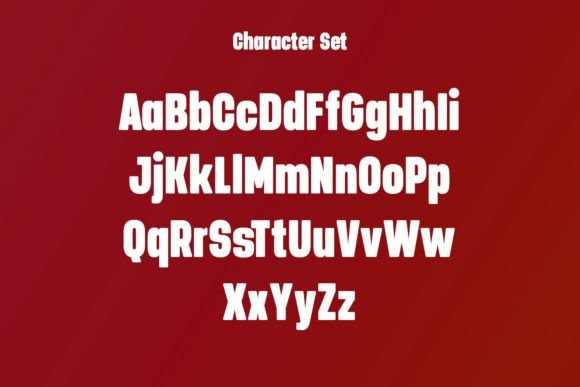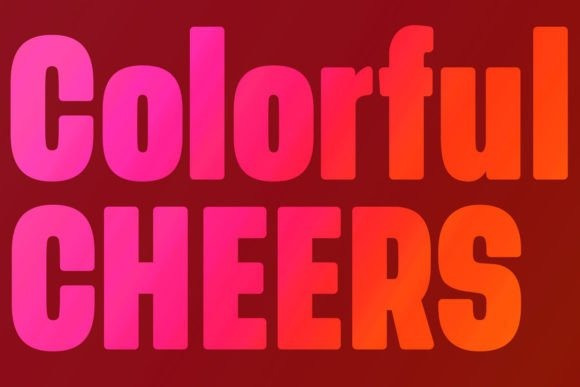
Densta Font
Densta Font is a cool condensed sans serif font crafted to give your headlines and logotype projects a stylish touch. This font reads as strong, confident, and dynamic and can add tons of character to your designs.